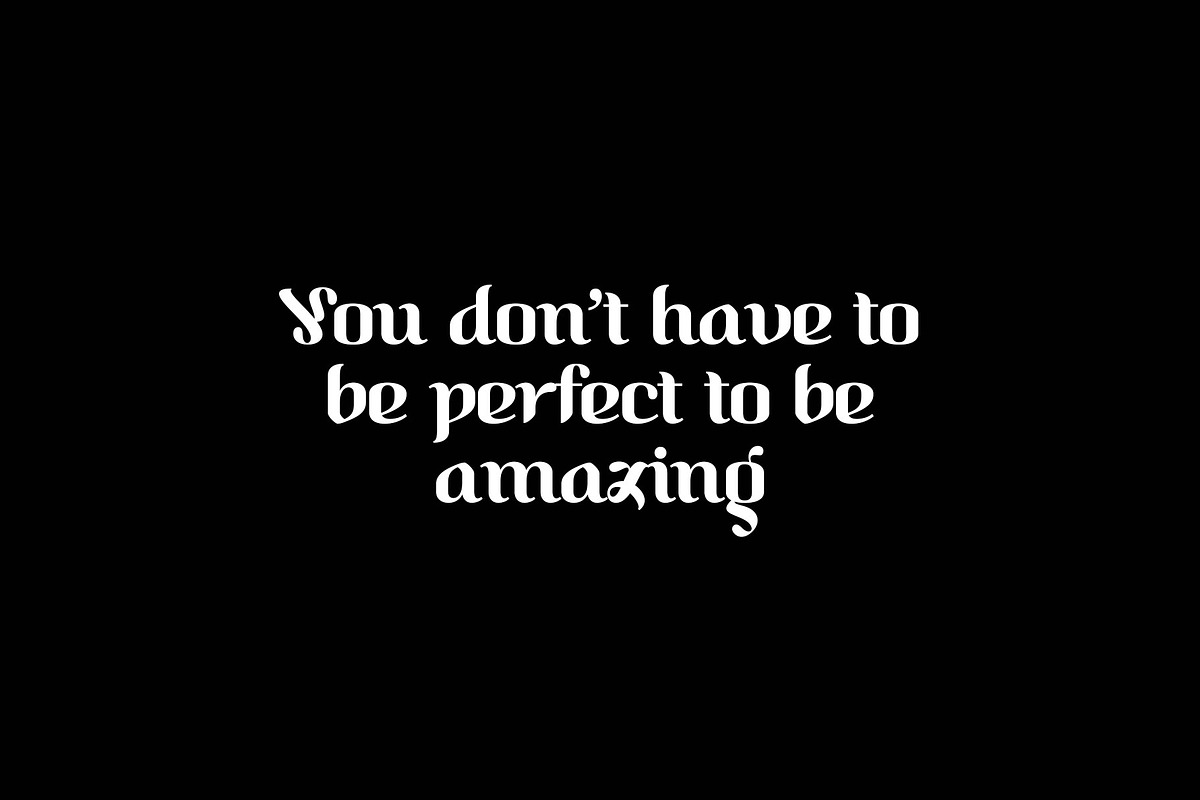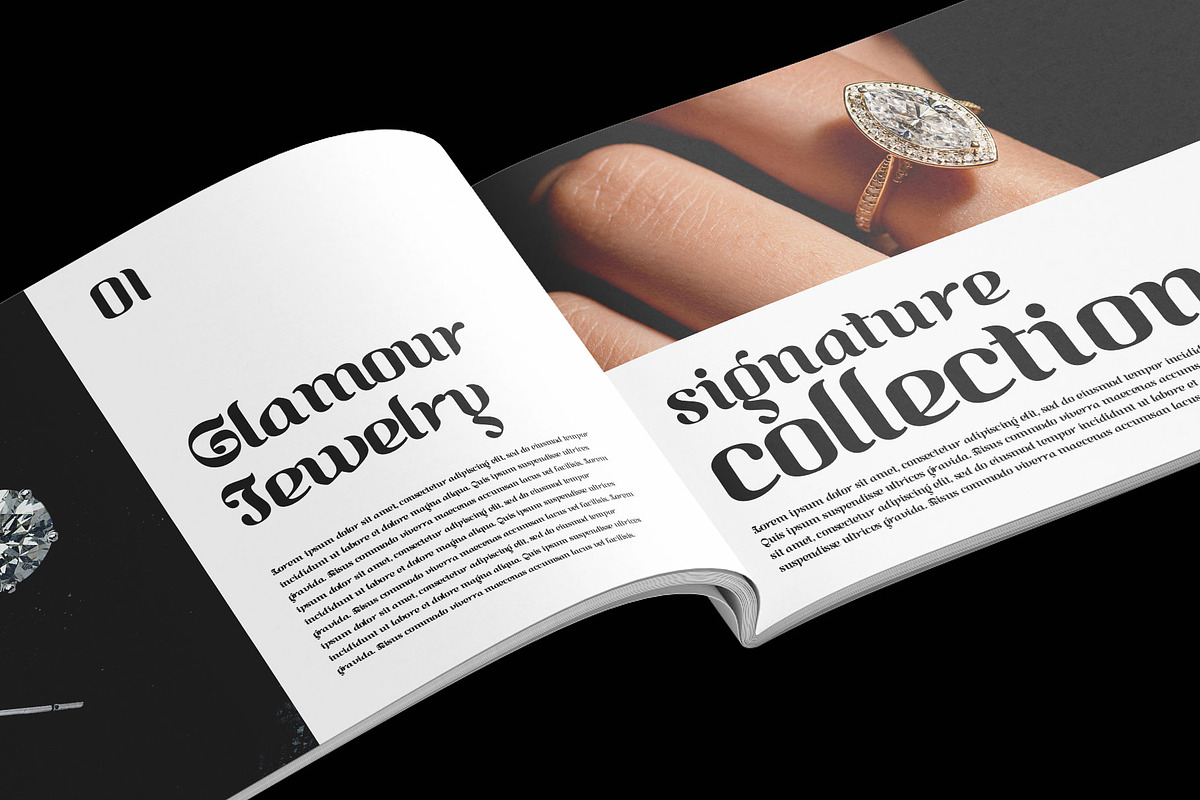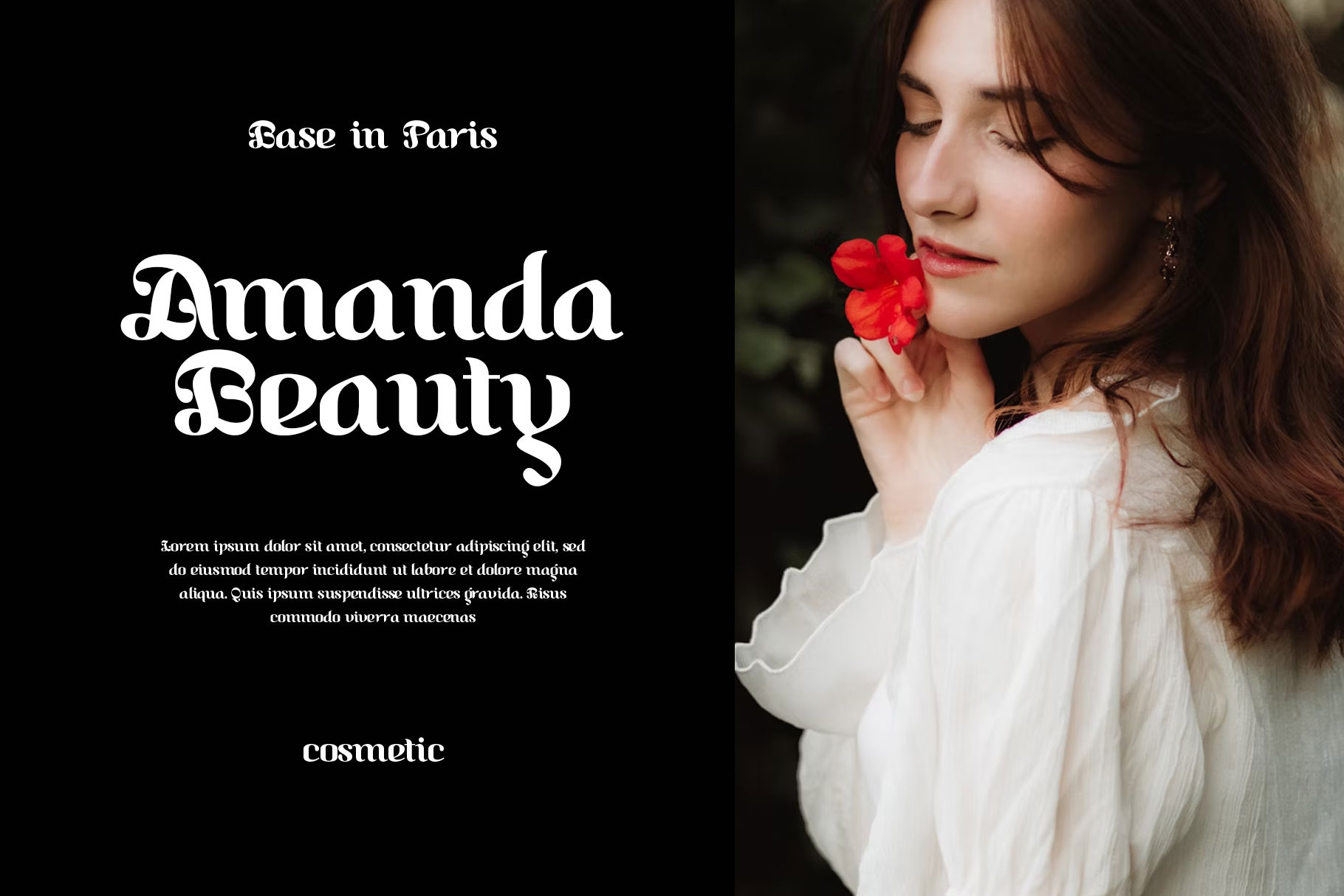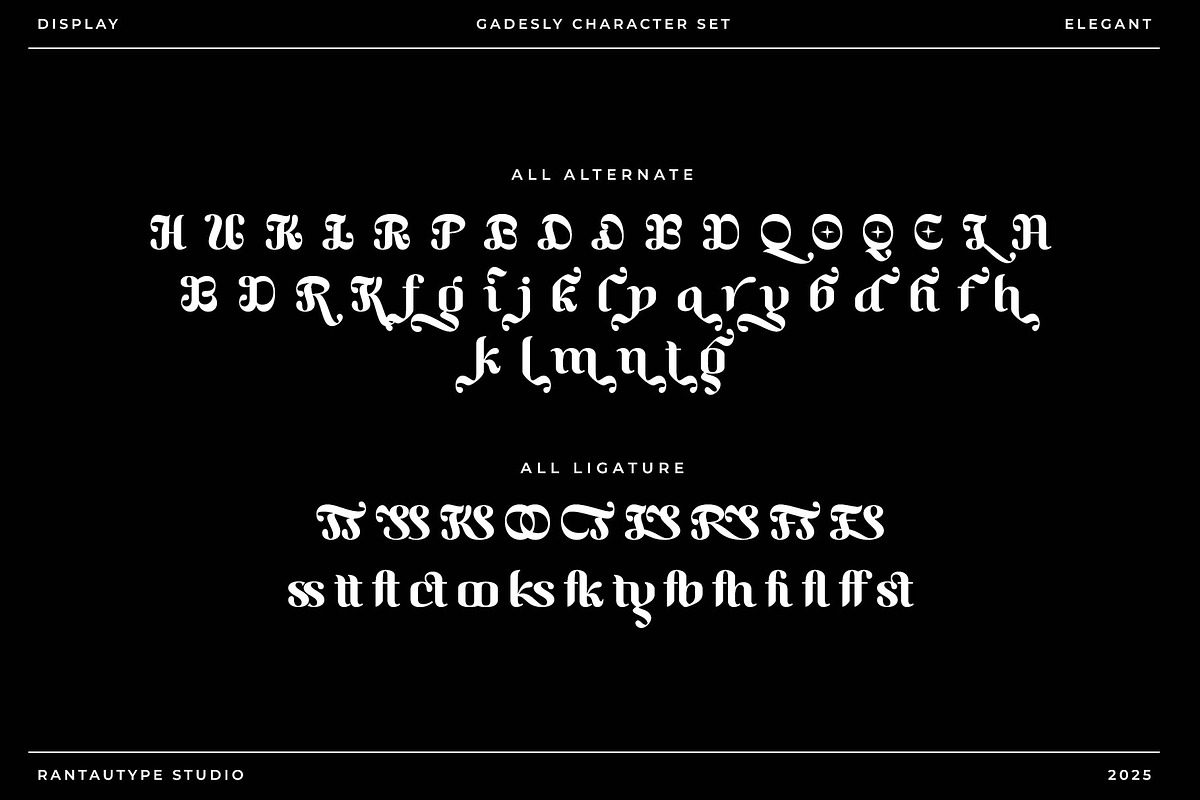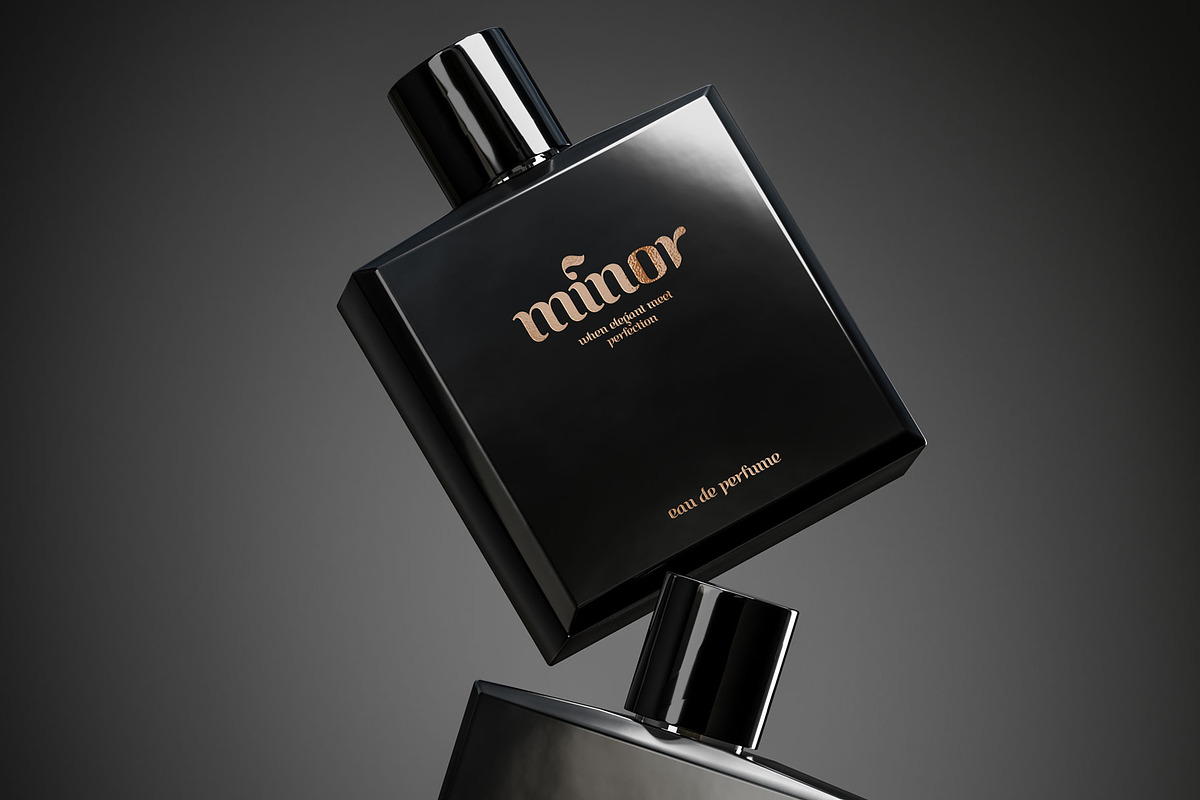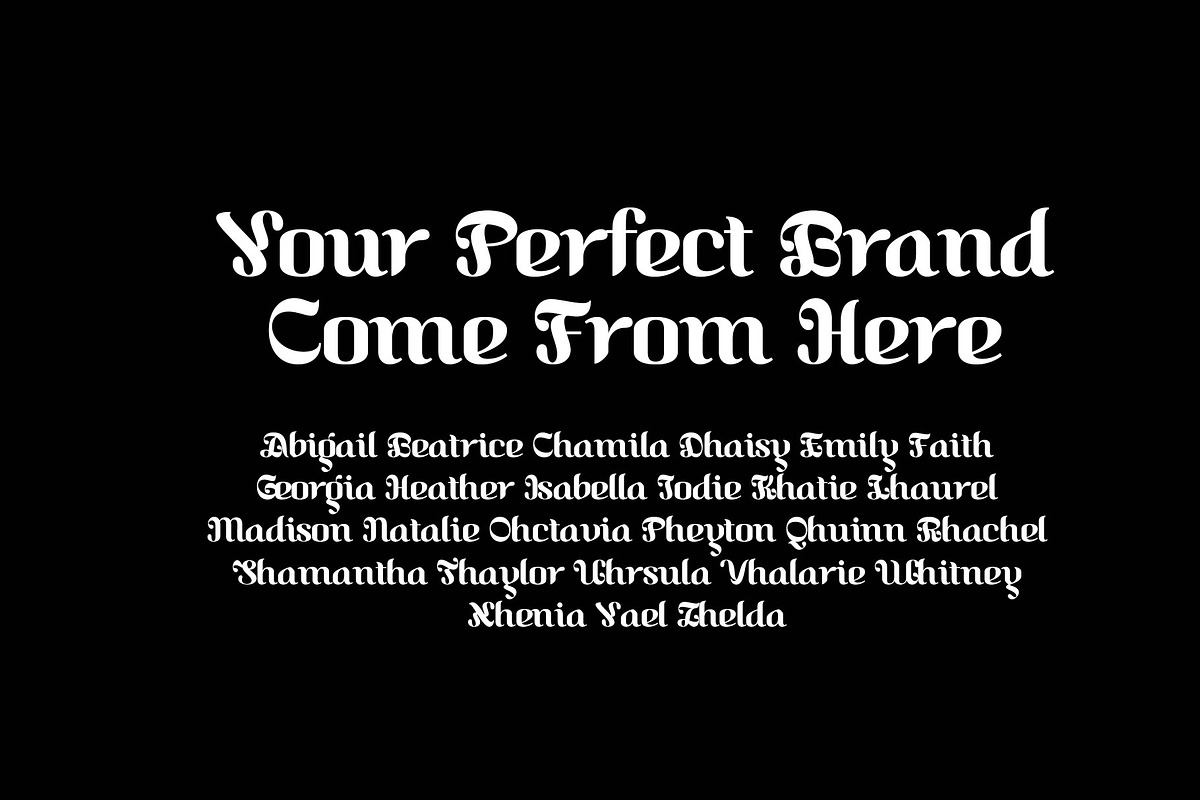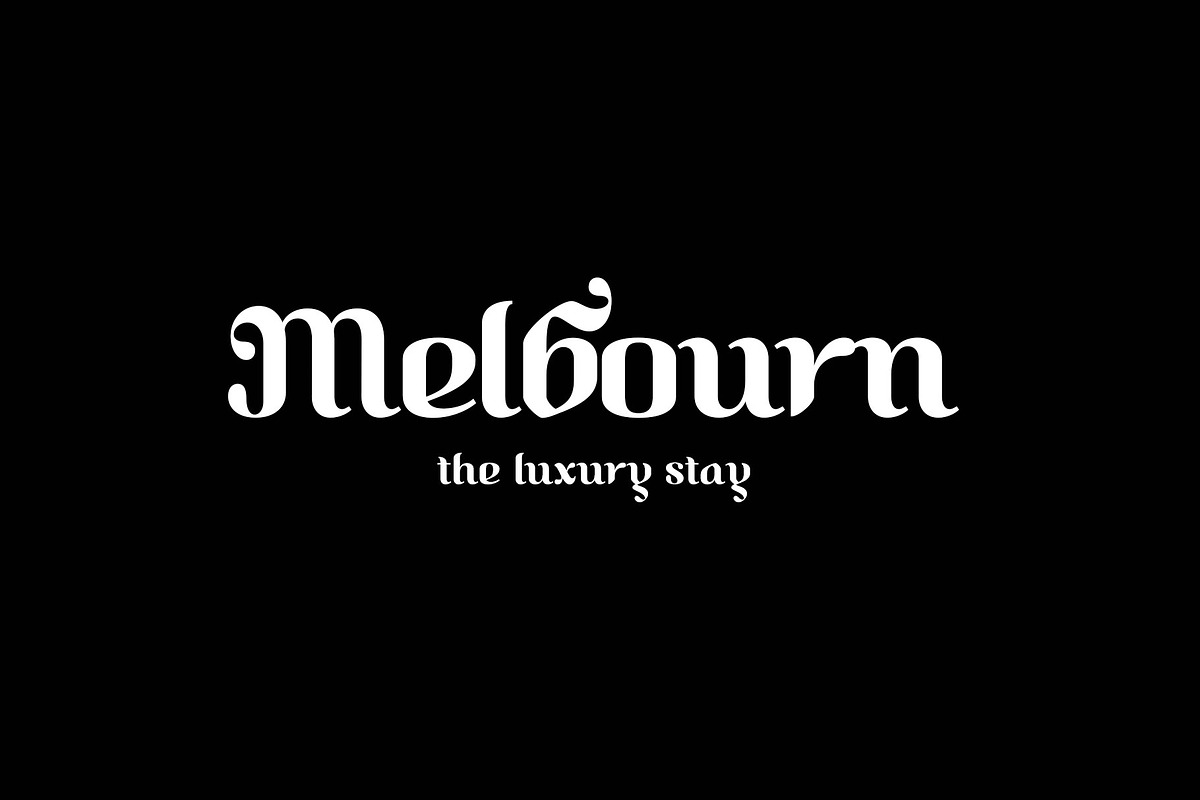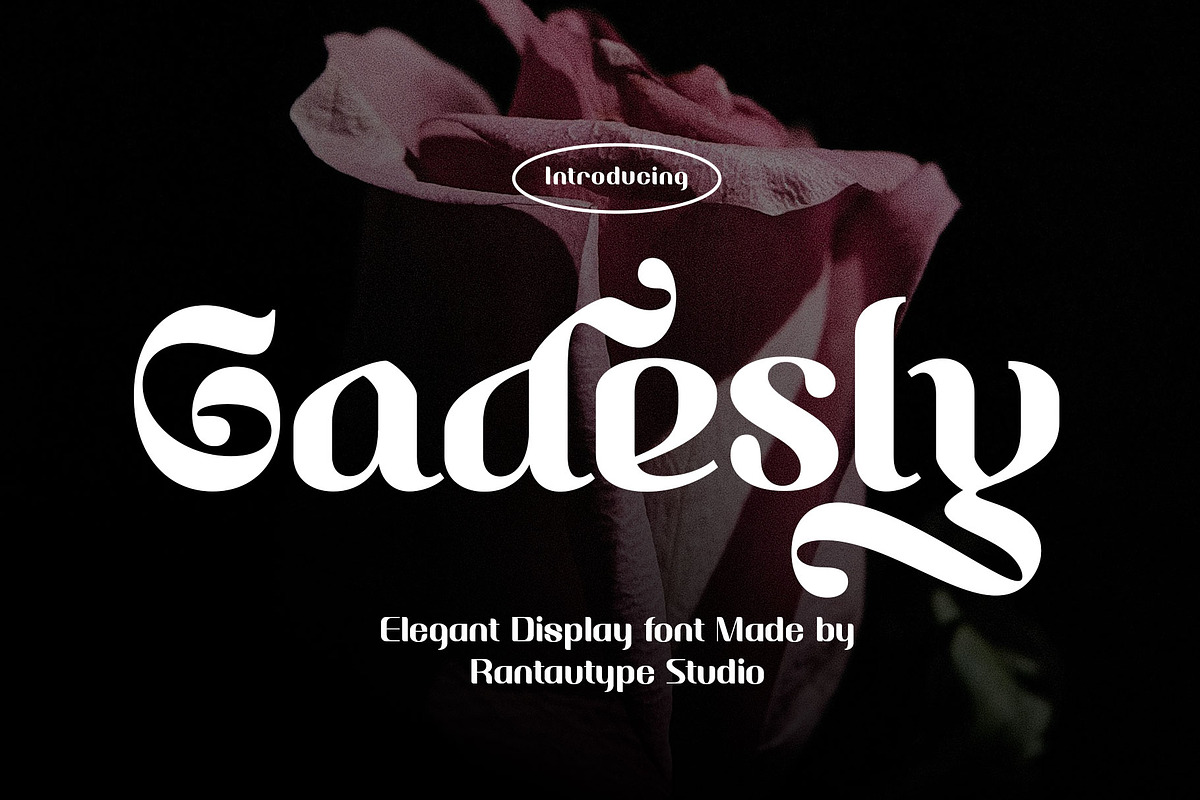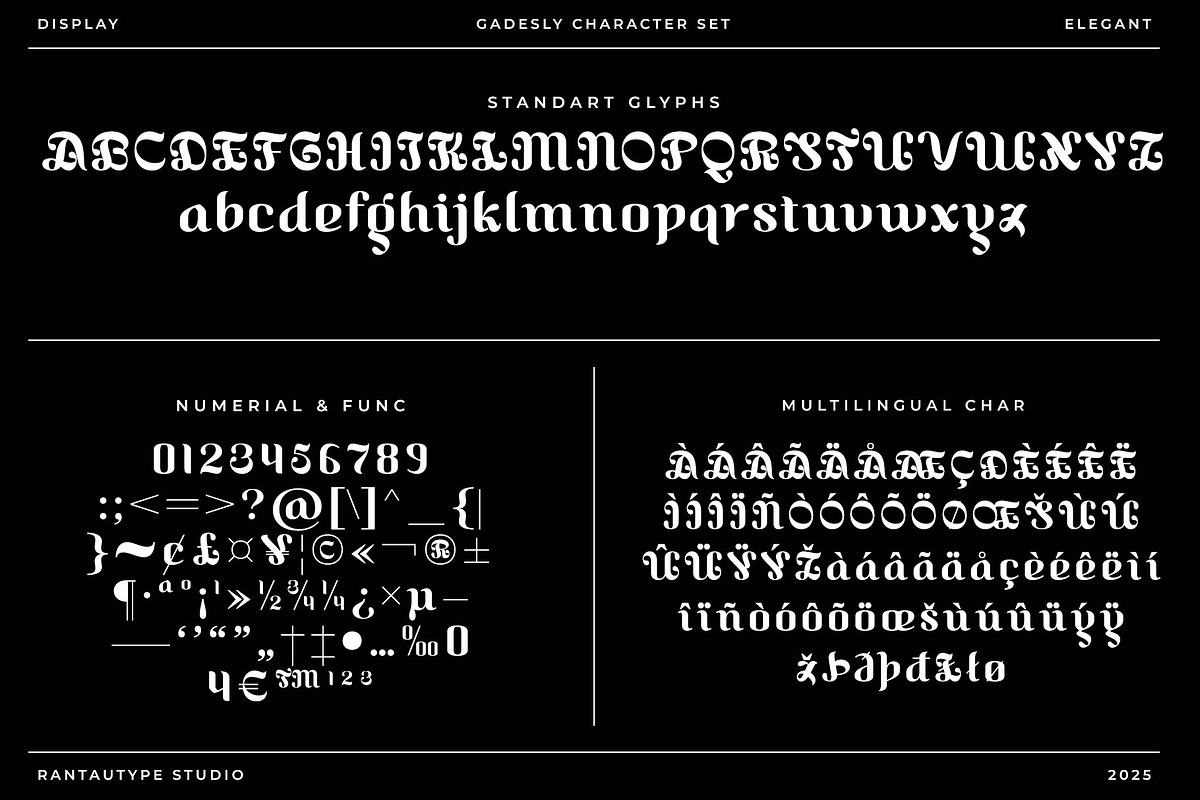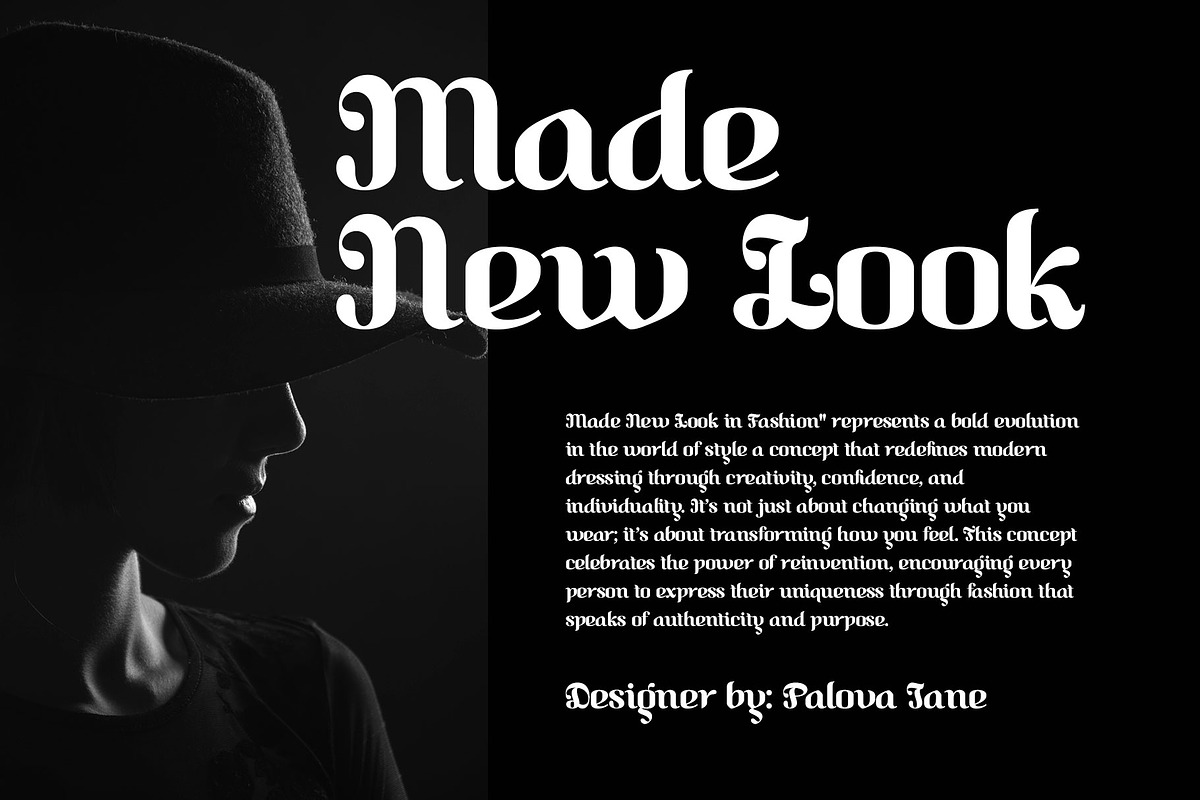
Gadesly Elegant Display Font
Gadesly is elegant display font inspire by blackletter character. Gadesly is a perfectly choice for any creative endeavor, creating, modern, lifestyle design such as logotype, title, cover, branding, invitations, wedding designs, display and magazine, social media posts, advertisements, printed quotes, product packaging, corporate brand, product designs, labels, photography, watermarks, special events and any other project with modern touch.
- Alternate and ligature
Fonts include Multilingual Character for: Afrikaans, Albanian, Asu, Basque, Bemba, Bena, Breton, Chiga, Cornish, Dutch, English, Estonian, Filipino, Finnish, Friulian, Galician, Gusii, Indonesian, Irish, Italian, Kabuverdianu, Kalenjin, Kinyarwanda, Luo, Luxembourgish, Luyia, Machame, North, Oromo, Portuguese, Quechua, Romansh, Rombo, Rundi, Rwa, Samburu, Sango, Sangu, Scottish, Gaelic, Sena, Shambala, Shona, Soga, Somali, Spanish, Swahili, Swedish, Swiss, German.